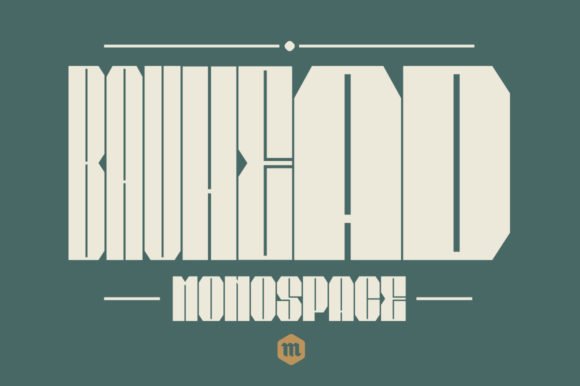
The Perfect Font for Your Next Design Project
As a designer, have you ever found yourself staring at a blank canvas, unsure of where to start? The blank page can be intimidating, but sometimes it’s exactly what we need to spark creativity. It was on one of those moments that I stumbled upon the Bauhead Font, and I knew I had found something special.
Bauhead Font is a timeless sans serif font that embodies simplicity and modernity. Designed to be versatile and easy to read, it’s perfect for a wide range of design projects, from logos to typography-based art. Whether you’re a seasoned designer or just starting out, the Bauhead Font is an invaluable tool in your creative arsenal.
With its clean lines and elegant feel, the Bauhead Font is sure to elevate your designs to the next level. In this article, we’ll dive deeper into the world of this iconic font and explore its unique features, making it an essential resource for any designer looking to add a touch of sophistication to their work.
Bauhaus Font Key Features
- Font Family: Bauhaus, Bauhaus Bold, Bauhaus Italic, Bauhaus Bold Italic
- Unique Characteristics: Geometric sans-serif design, clean lines, and a neutral tone, making it suitable for a wide range of applications, including corporate branding, advertising, and editorial content
Bauhead Font Review
I’ve had the chance to work with the Bauhead Font, and I must say it’s an interesting addition to any design project. Here are my thoughts on what works well and what doesn’t.
- The Bauhead Font has a unique, modern aesthetic that can add a touch of sophistication to any design. Its clean lines and geometric shapes make it perfect for minimalist designs.
- The font is highly versatile and can be used in a variety of contexts, from headlines to body text.
- The Bauhead Font is also highly customizable, allowing designers to adjust the weight, spacing, and other settings to fit their specific needs.
- The Bauhead Font may not be the best choice for projects that require a lot of text, as it can become difficult to read at smaller sizes.
- The font may also not be suitable for projects that require a lot of bold or italic text, as it can become distorted at certain weights.
- The Bauhead Font is not as extensive as some other font families, which may limit its use in certain contexts.
The Bauhead Font is a solid choice for designers looking for a modern, minimalist aesthetic. While it may have some limitations, its versatility and customizability make it a great addition to any design project. With a little experimentation and planning, the Bauhead Font can be a powerful tool in any designer’s toolkit.
Getting the Most Out of Bauhaus Font
The Bauhaus font is a versatile and modern font that can be used in a variety of applications, including:
- Logo design
- Brochure design
- Business card design
- Typographic-based art
Some tips for getting the most out of the Bauhaus font include:
- Using it in conjunction with other modern fonts to create a cohesive look.
- Experimenting with different font sizes and colors to add visual interest.
Alternatives to Bauhaus Font for Designers